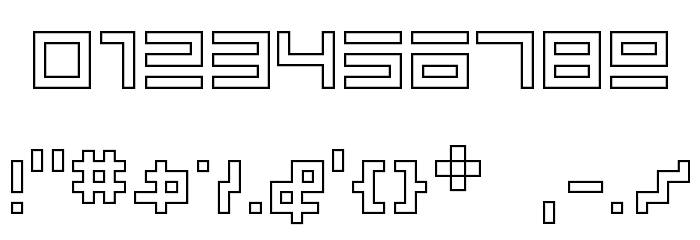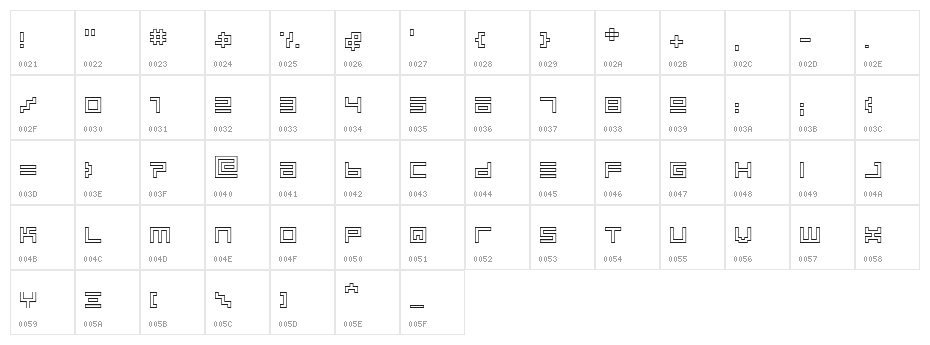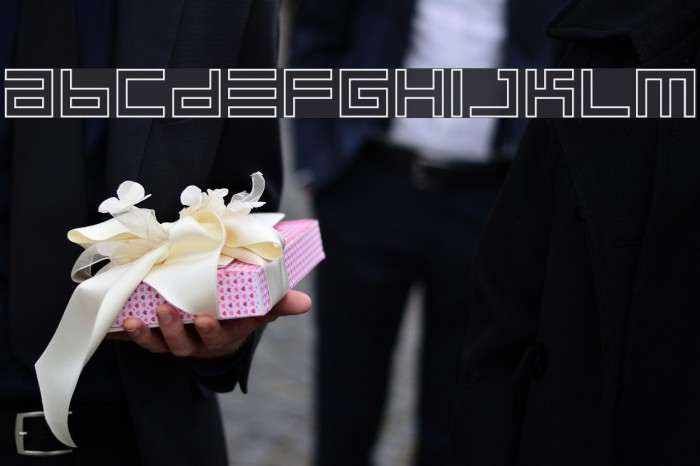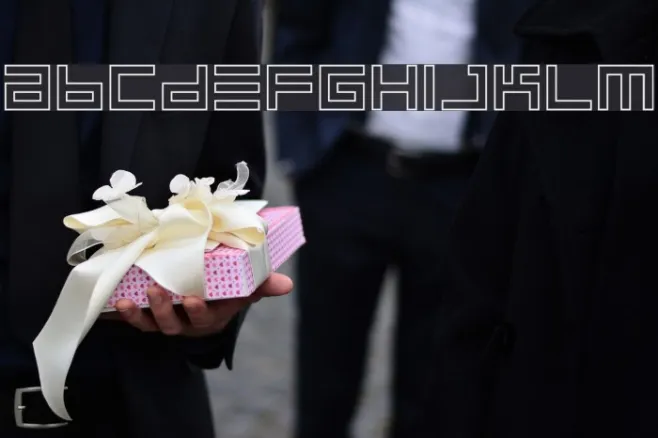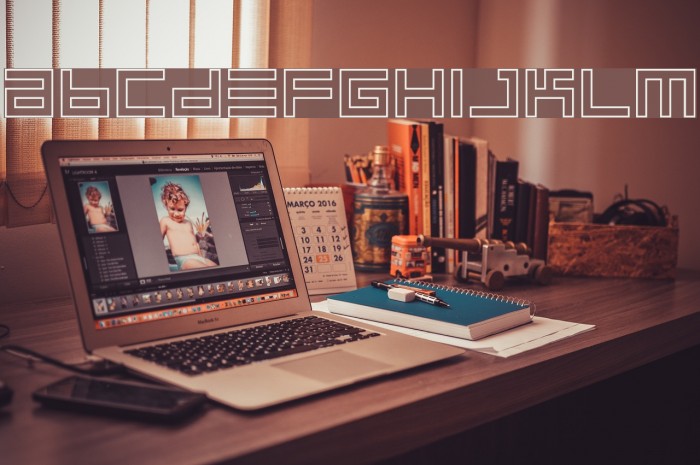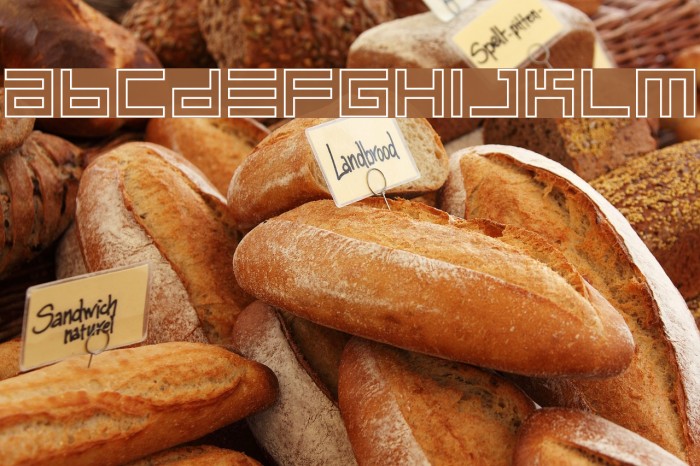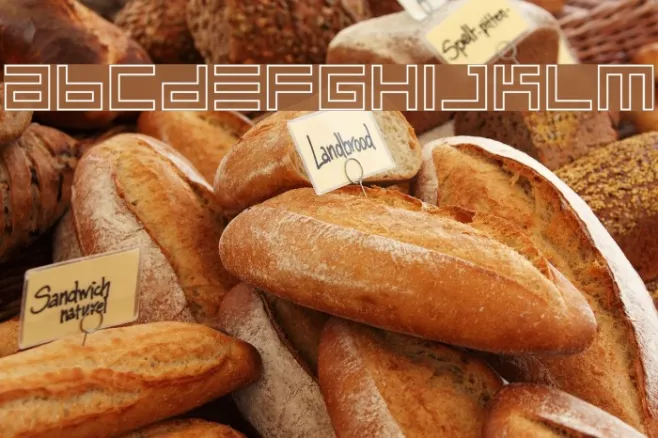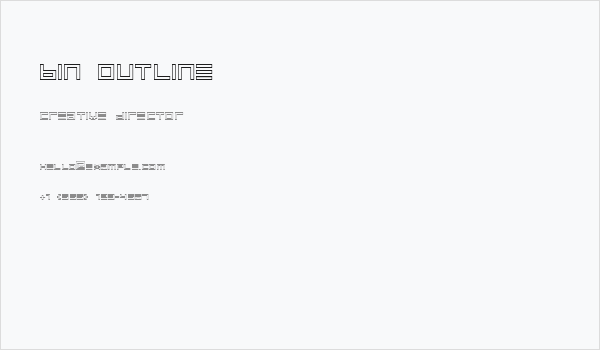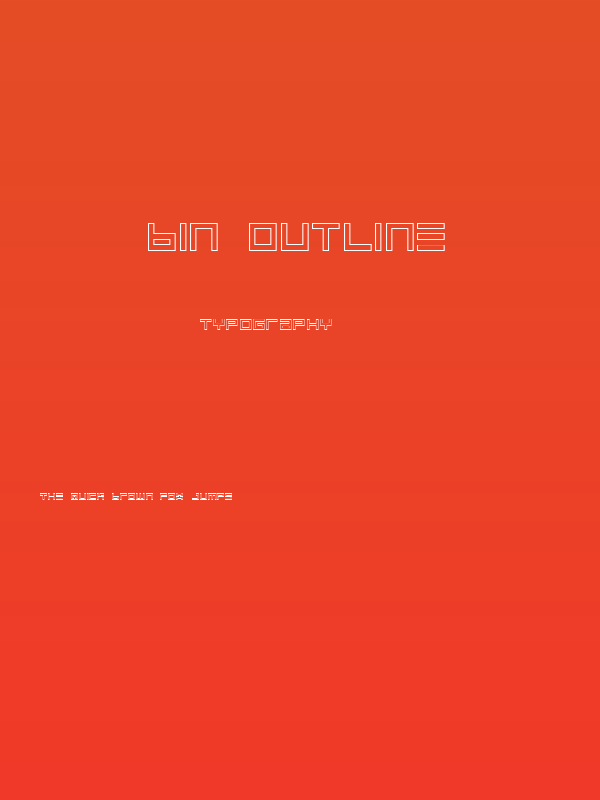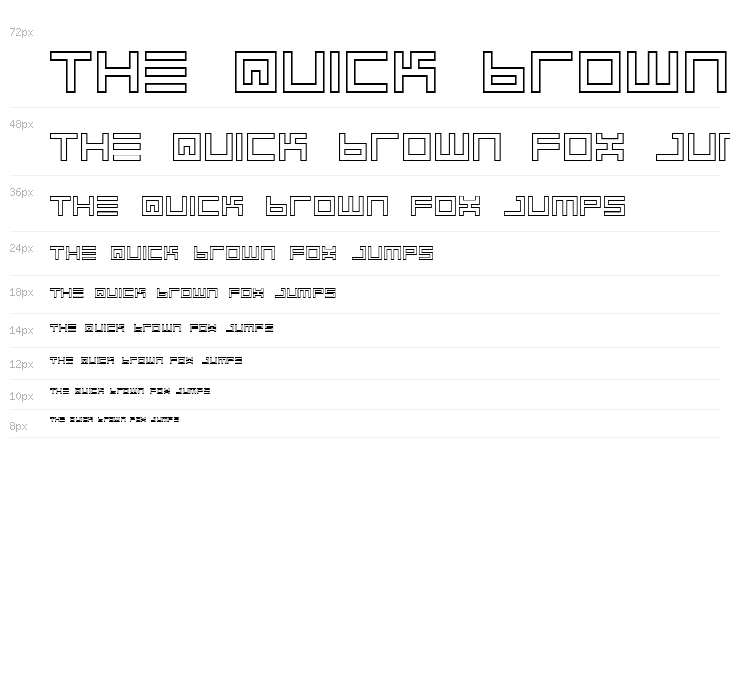
BIN Outline Font
BIN Outline Description
This font features a geometric, outline style with a futuristic and digital aesthetic. Each character is constructed with precise, angular lines, giving it a structured and mechanical appearance. The uppercase and lowercase letters maintain a consistent height, contributing to a uniform look. The numbers and special characters follow the same design principles, ensuring cohesion across all elements. The font's outline nature makes it suitable for designs that require a modern and tech-savvy feel. Its unique style is eye-catching and can be used to create a strong visual impact.